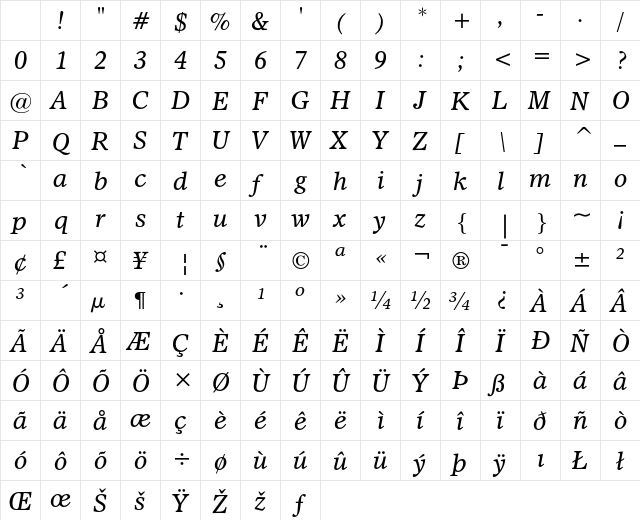
Dutch 811 is a composed and adaptable typeface that performs quietly and consistently across a wide range of design contexts. The slanted form adds forward momentum and visual energy.
Pro Tip: Use Dutch 811 for emphasis, pull quotes, and subheadings where its slanted energy can add rhythm to the layout.